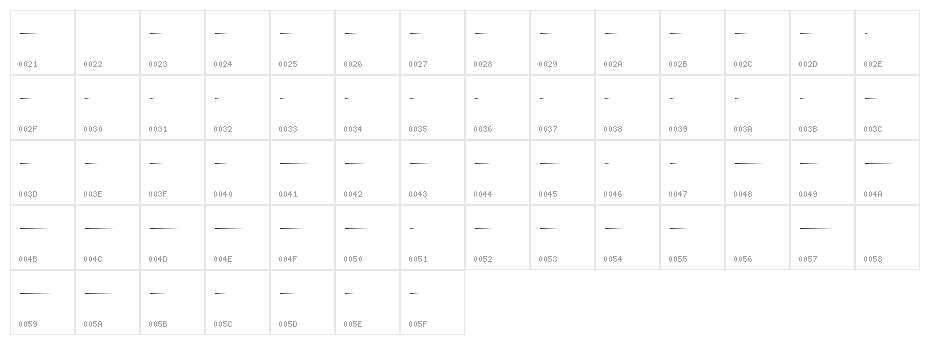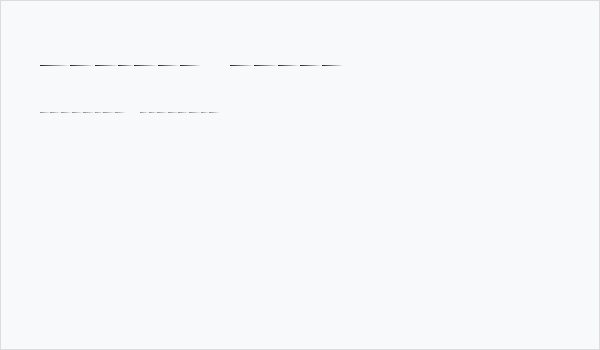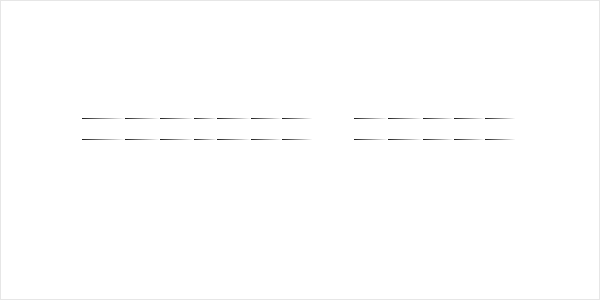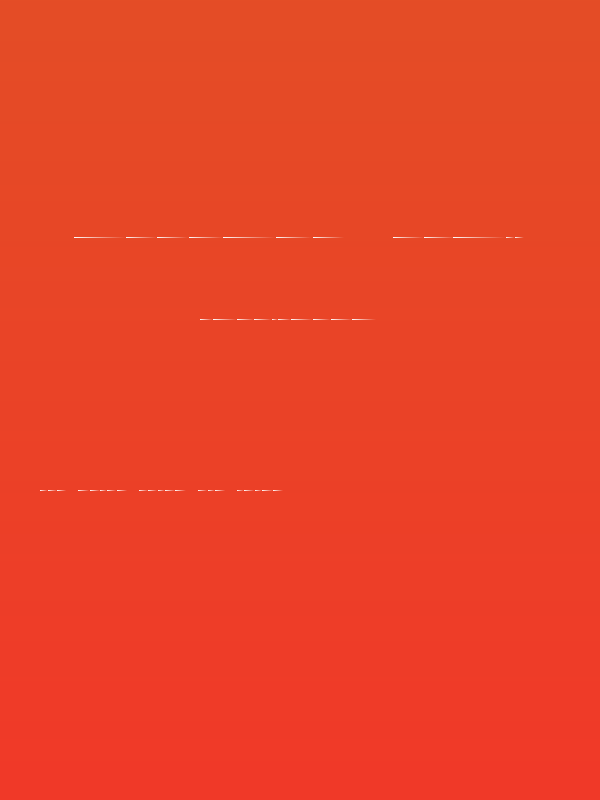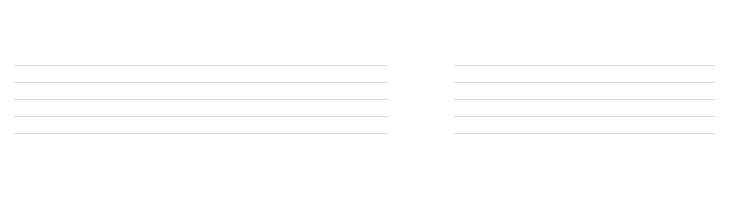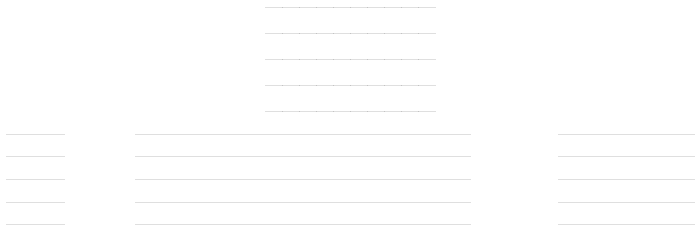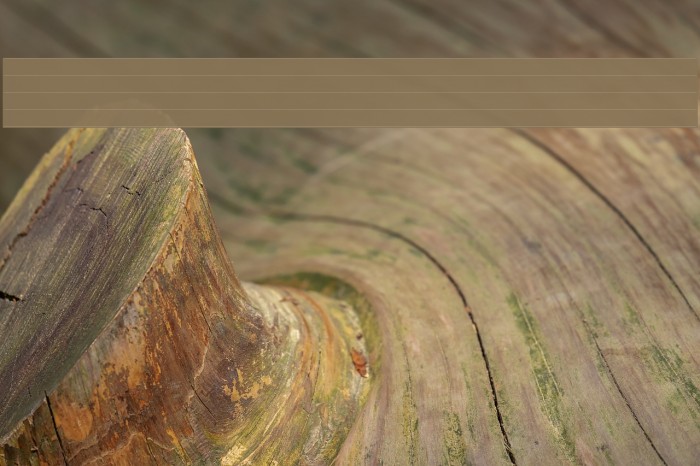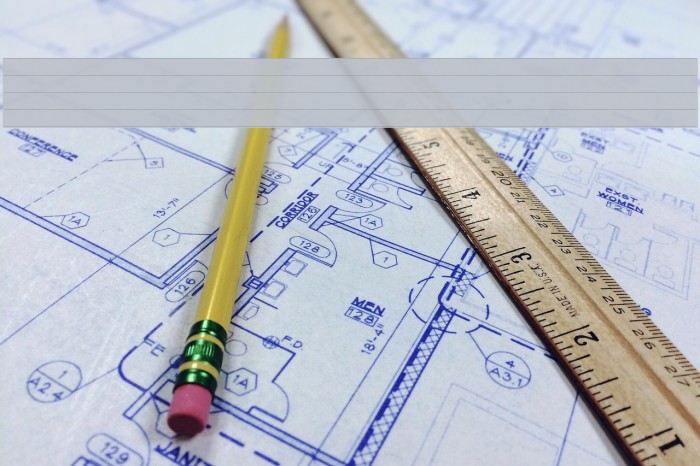
Musiker staff Font
Musiker staff Description
This image contains only musical staff lines arranged in various groupings and layouts, with no typographic characters or font samples present.